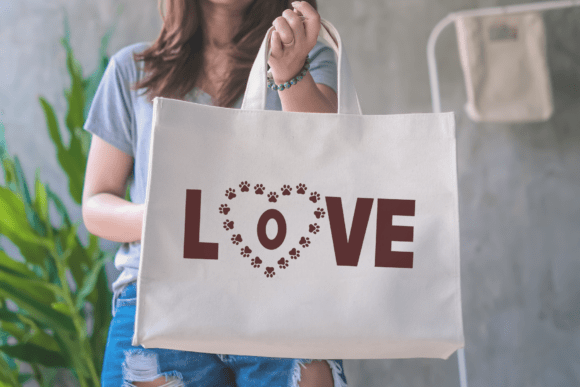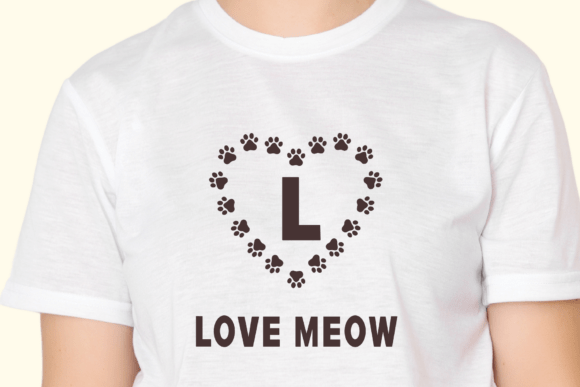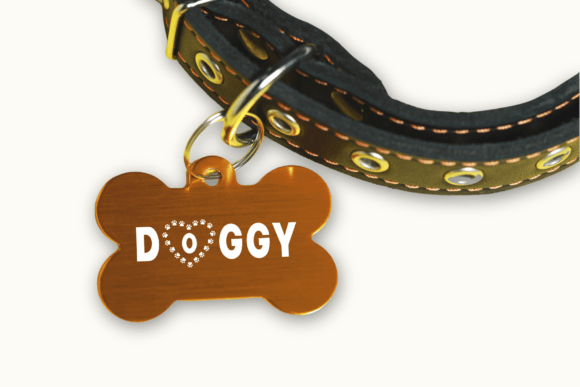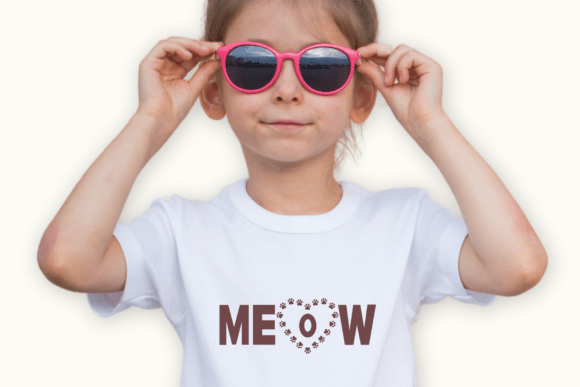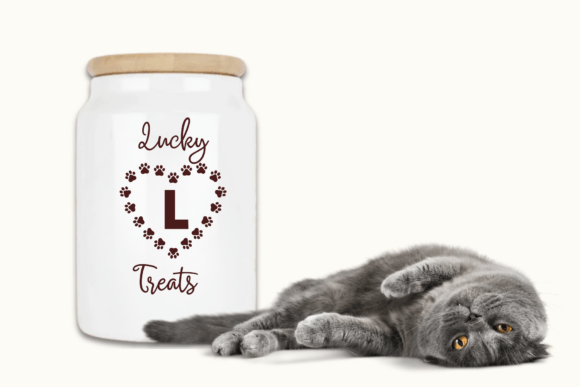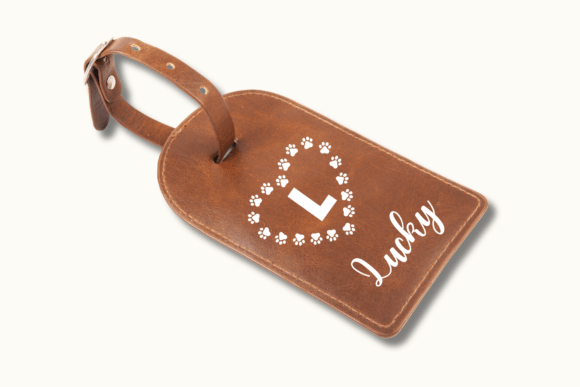
Introduction to Heart Paw Font
Heart Paw Font is a cute and decorative typeface designed with love and paw prints.
Perfect for pet-themed designs , greeting cards, t-shirts, logos, and crafts This font adds a playful and heartwarming touch to your creative projects, ideal for dog lovers, cat lovers, and animal-themed artwork.